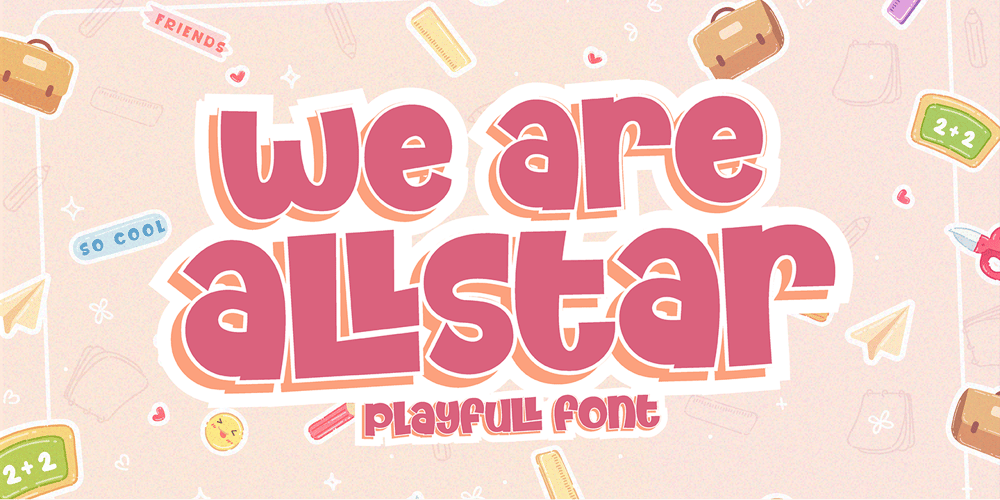
We Are Allstar
We Are Allstar font
We Are Allstar Font Family was designed by Gumilar Pratama Adiatna and published by Gilar Studio. We Are Allstar contains 3 styles and family package options. Introducing ” We Are Allstar – Trio Playfull Fonts ” We Are Allstar a Handwritten Display Font With 3 Style (Regular,Outline and Shadow)You Can Mix And Match for Your Awesome Project This fonts is ideal for crafting, branding and decorate your any project. This fonts are perfect for wedding invitation or your blog. Also with their help, you can create a logo or beautiful frame for your home. Or just use for your business, book covers, stationery, marketing, magazines and more. FEATURES : Uppercase & Lowercase Number & Punctuation More than 251 of glyphs Multilingual Language PUA Encode 27 Ligatures Alternate 7 OpenType features were detected in the font (aalt dlig frac liga ordn salt sups kern) Support for 67 languages detected The alternative characters were divided into several Open Type features can be accessed by using Open Type savy programs such as Adobe Illustrator, Adobe InDesign, Adobe Photoshop Corel Draw X version, And Microsoft Word. And this Font has given PUA unicode (specially coded fonts). so that all the alternate characters can easily be accessed in full by a craftsman or designer.Check my other Font here : https://gilarstudio.com/ Thanks and happy designing 🙂